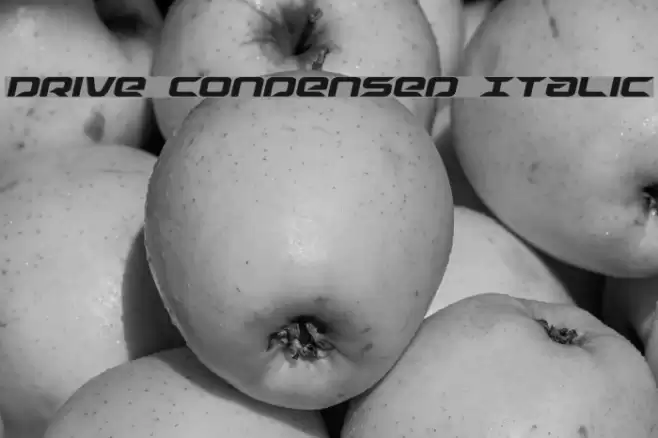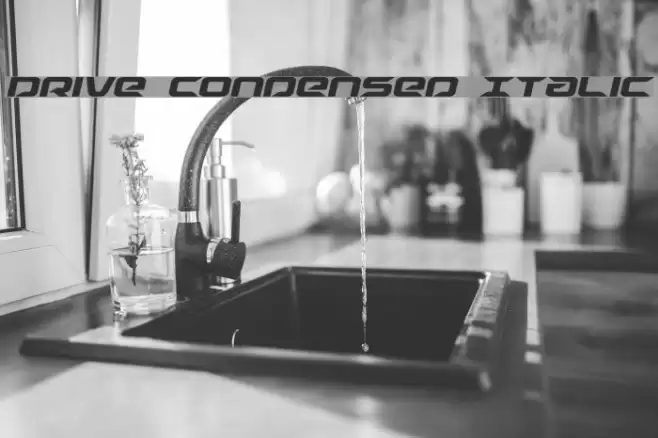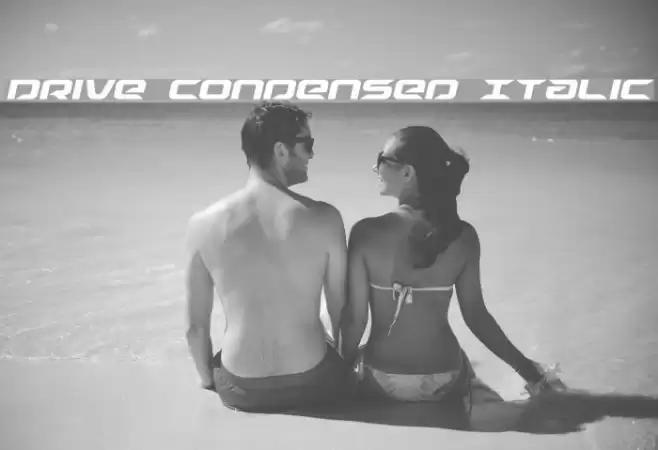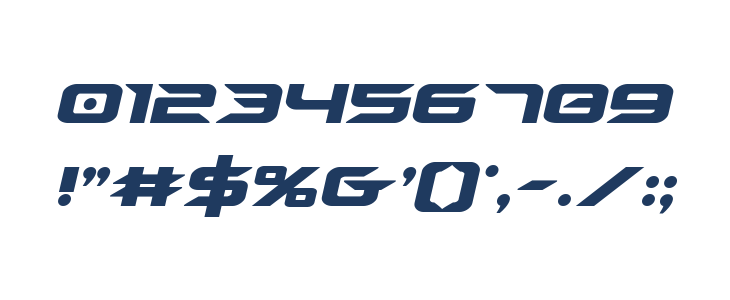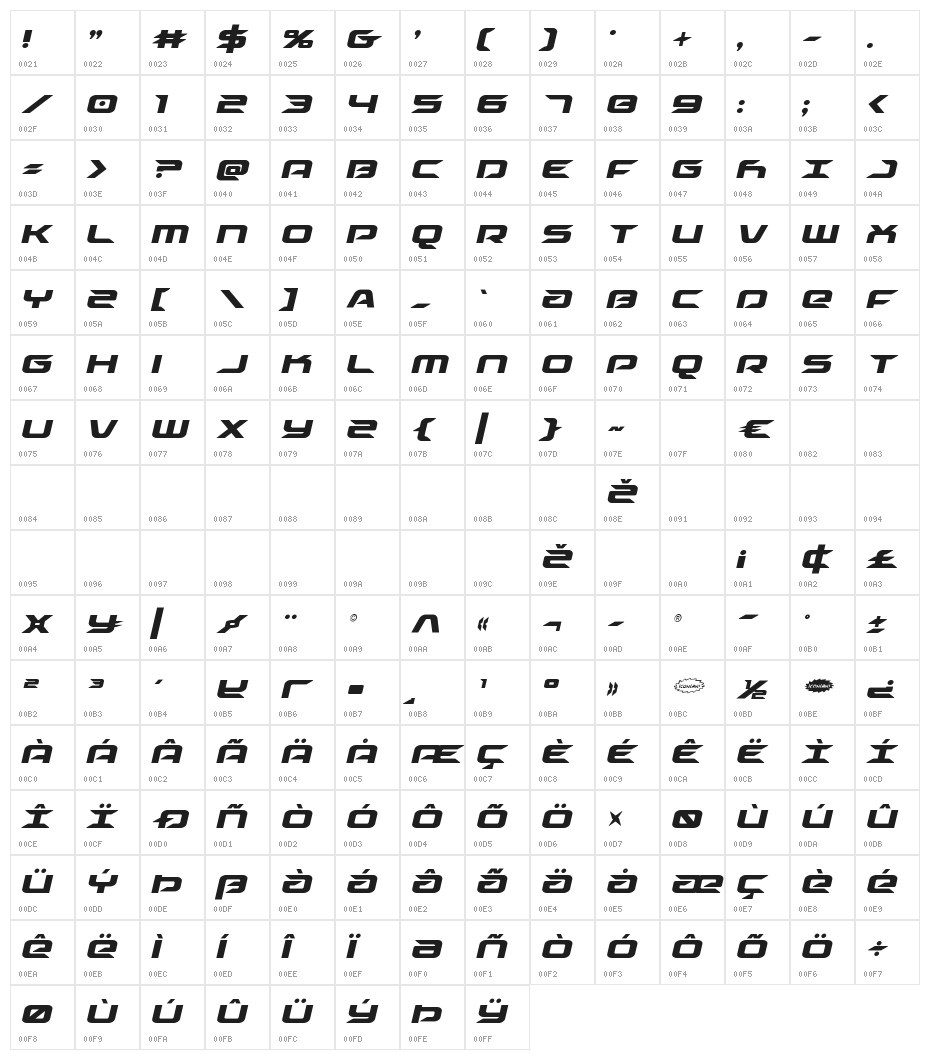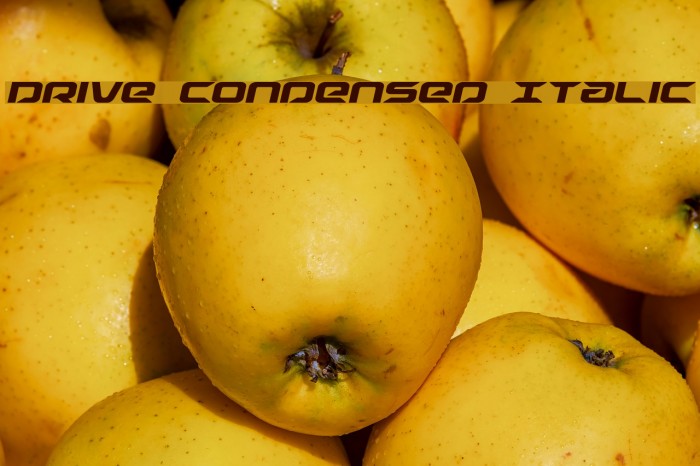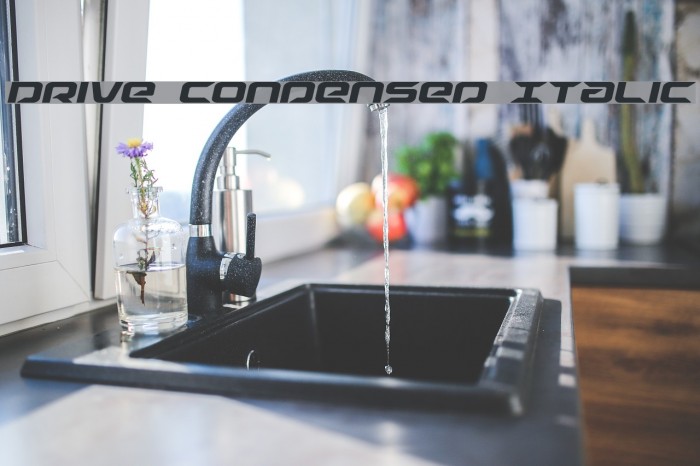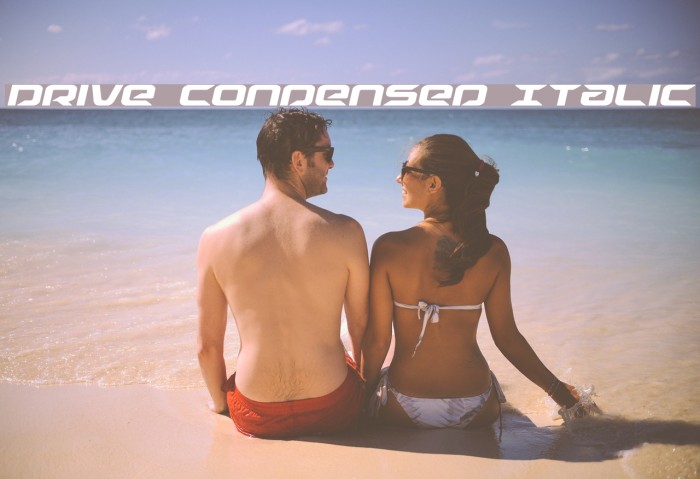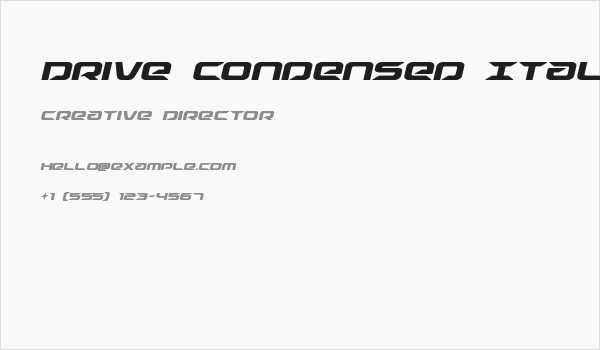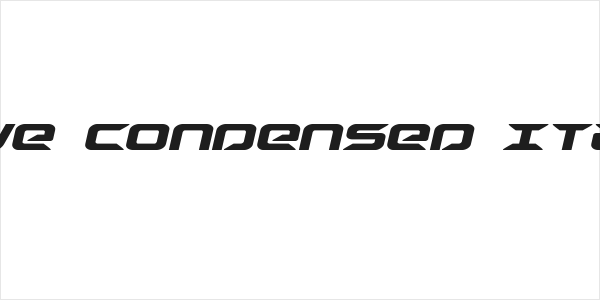
Drive Condensed Italic Font
Drive Condensed Italic Description
This font features a modern, futuristic design with a condensed and italicized style. The characters are sleek and angular, giving a sense of speed and dynamism. The uppercase and lowercase letters maintain a consistent aesthetic, with sharp edges and a forward-leaning posture. The numerals and special characters are designed to match the overall style, ensuring a cohesive look across all text. This font is ideal for projects that require a bold and contemporary appearance, such as technology branding, automotive designs, or sports-related graphics.
A modern, condensed italic font with a sleek, angular design from Uncategorized fonts.
- Proposed Projects: Ideal for technology branding, automotive designs, sports graphics, and futuristic themes.
- Use Case: Logos, Headlines, Branding